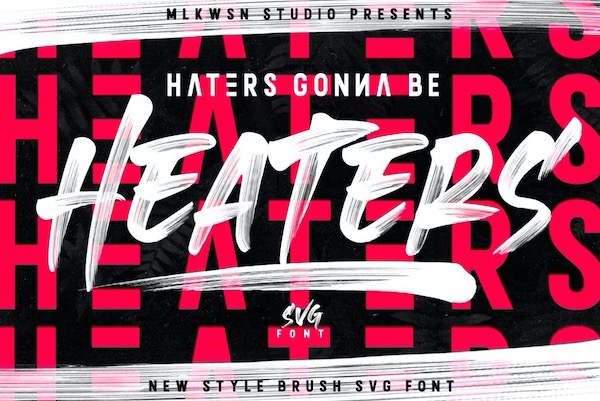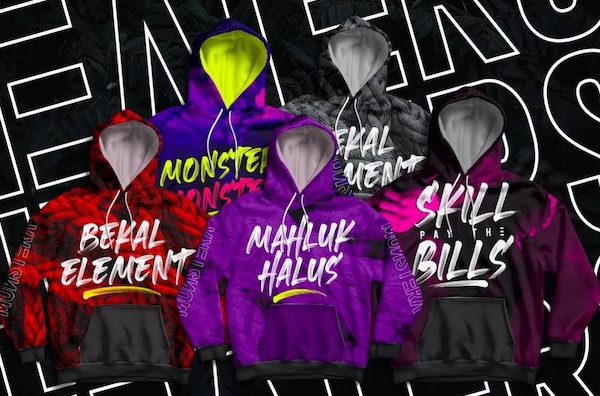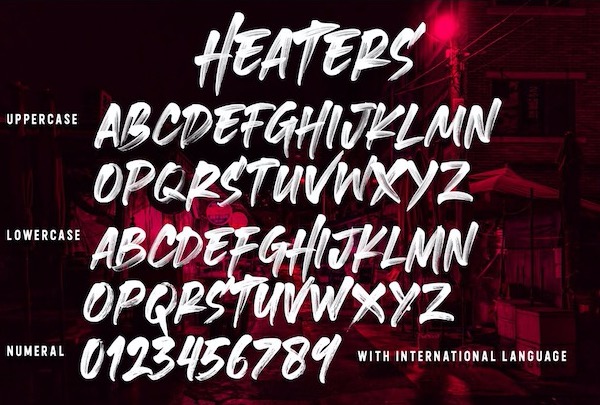
Heaters is a cool and delicate brush handwritten font that was created and released by MLKWSN. And it preserves all the high-definition detail of the original handwritten letters. Using OpenType-SVG technology it truly looks realistic. The OpenType-SVG format requires Photoshop CC 2017 or Illustrator CC 2018 (or newer). Regular OTF format is also included.
Take your design to the up level with a hyper-realistic font that truly looks hand painted. Heaters uses brand new technology that makes way for more authentic looking fonts and is sure to grab the attention of customers and designers alike.
Heaters Brush Handwritten Font